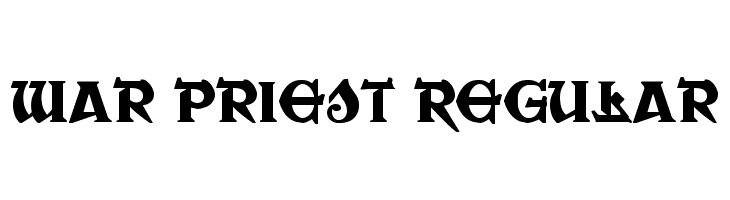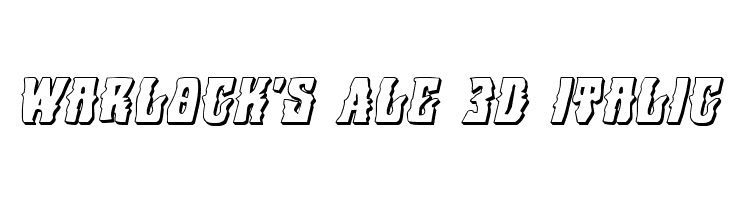
A bold, medieval-inspired font with sharp angles and strong serifs.
A bold, angular font with a dynamic slant and medieval flair.
A bold, gothic-inspired font with sharp, angular edges and a dynamic, rotated style.
A bold, angular font with a medieval, fantasy-inspired design.
A bold, playful font with a hand-drawn, casual style.
A bold, geometric font with a modern and impactful design.
A bold, geometric font with a futuristic, industrial design.
A bold, jagged font with a mystical and eerie style.
A bold, 3D effect font with sharp angles and a dramatic presence.
A bold, 3D italic font with sharp, angular edges and a dynamic shadow effect.